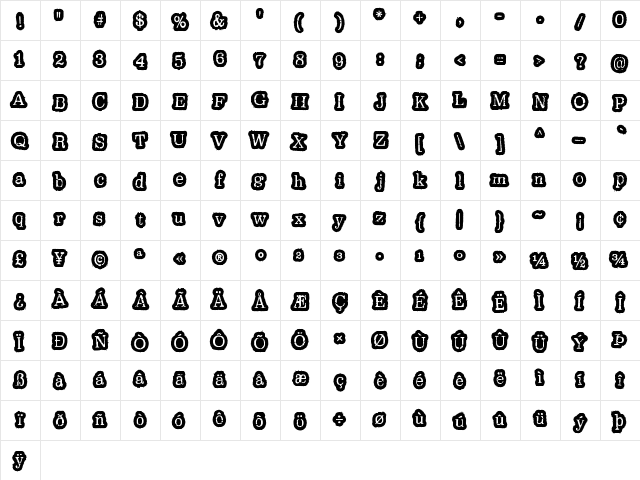
Oxeran Z
Design Context for Oxeran Typeface
Oxeran is a composed and adaptable typeface that performs quietly and consistently across a wide range of design contexts.